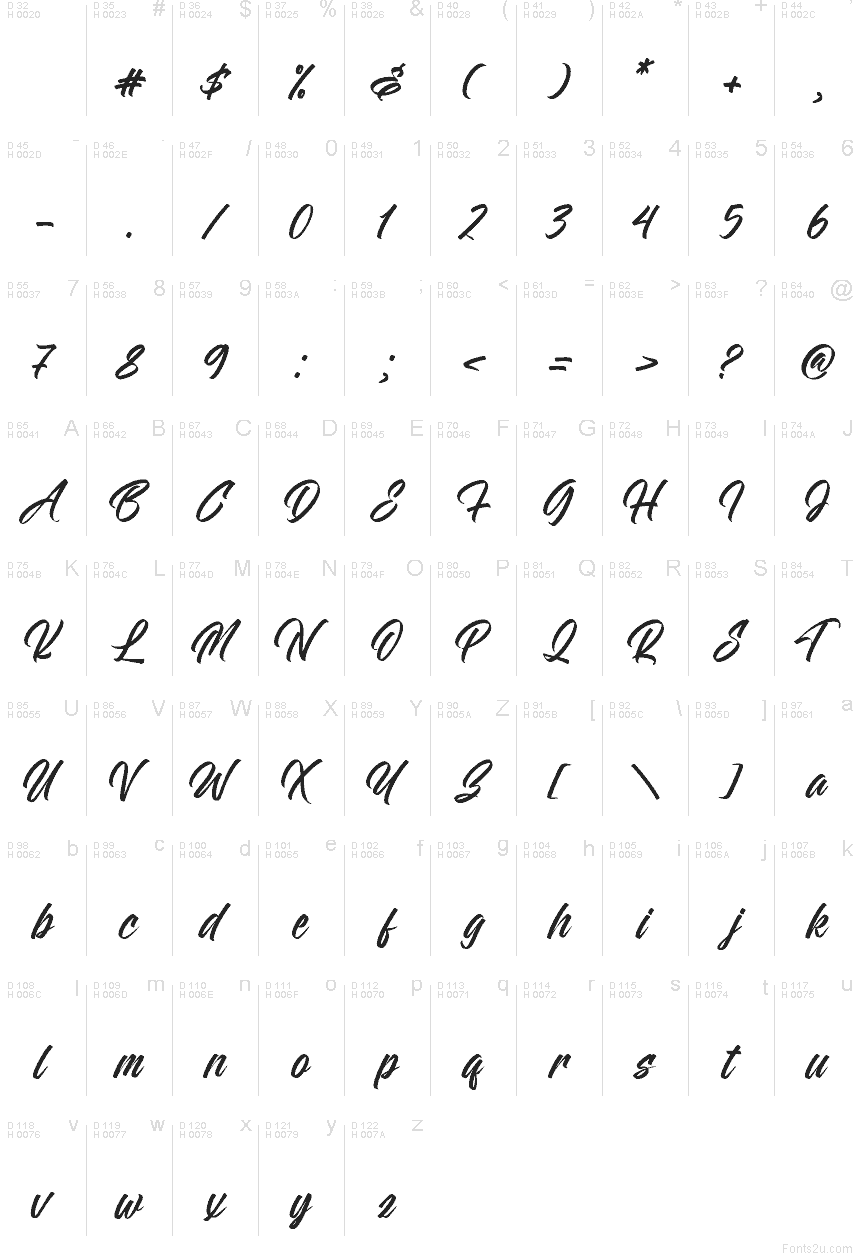
Weloghan font by Afkari Studio is a free handwritten script typeface with the smooth sweep of a thick marker and the polish of professional lettering. Each word feels like a confident signature: bold strokes, tight curves, and a slightly forward slant that gives it motion and energy. It treads that sweet spot between casual and chic, so it reads as friendly without ever looking messy.
Using Weloghan, headlines and logos jump off the page-this free font shines on product branding, café menus, wedding stationery, social media graphics, packaging, and bold name signatures. The dense, inky texture holds up beautifully at larger sizes, making it a go-to for hero text. Pair Weloghan with a clean sans serif for body copy to keep layouts clear while letting the script do the talking.